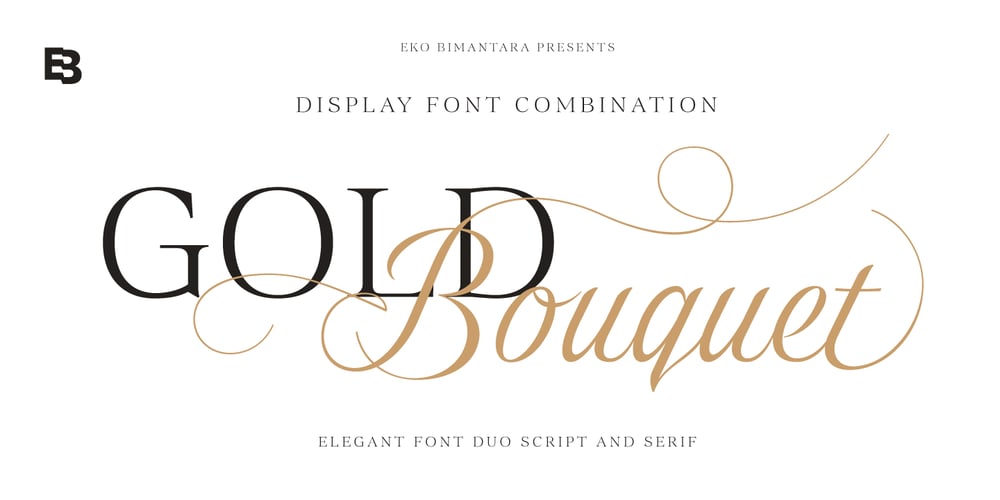
Gold Bouquet
Gold Bouquet font
Gold Bouquet Font Family was designed by Eko Bimantara and published by Eko Bimantara. Gold Bouquet contains 2 styles and family package options. Introducing Gold Bouquet, an enchanting font duo consisting of a graceful script and a timeless serif. This elegant pairing exudes beauty, charm, and a touch of luxury that will captivate any audience. With its intricate details and flowing lines, the script font adds a feminine and delicate allure to your designs, while the serif font brings a sense of classic sophistication.Gold Bouquet offers a plethora of OpenType features, allowing you to enhance your typography with ligatures, alternate characters, and swashes. This wealth of options provides endless possibilities to create unique and stunning designs. Whether you’re designing headers, titles, or even crafting an exquisite website, Gold Bouquet is the perfect choice to elevate your project to new heights.The harmonious interplay between the script and serif fonts in Gold Bouquet ensures a flawless and seamless pairing. The combination of these two fonts creates a visual harmony that is pleasing to the eye and enhances the overall elegance of your designs. Their versatility makes them well-suited for a wide range of design and creative projects, enabling you to infuse a touch of sophistication and allure into branding, advertisements, packaging, and various other creative endeavors.